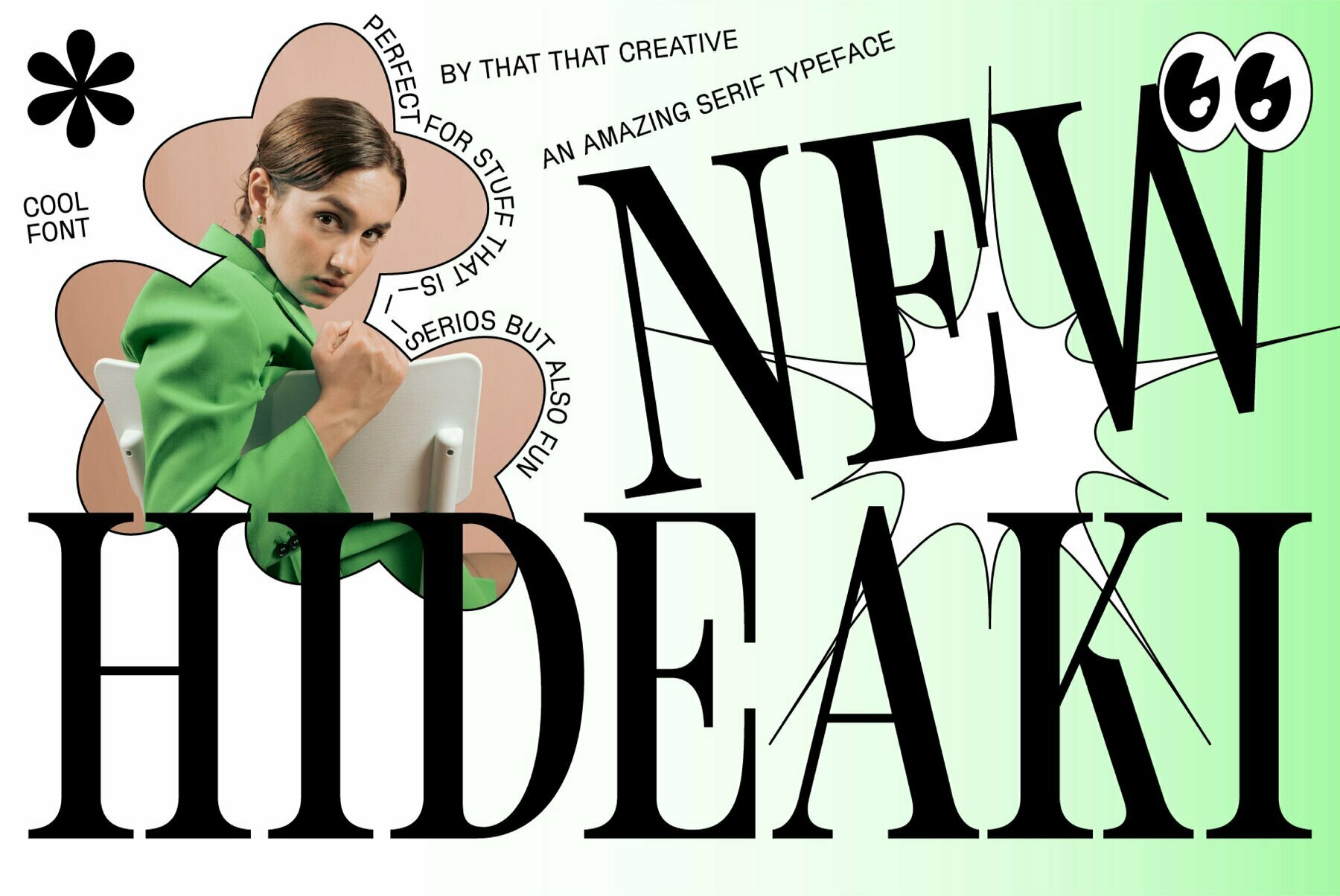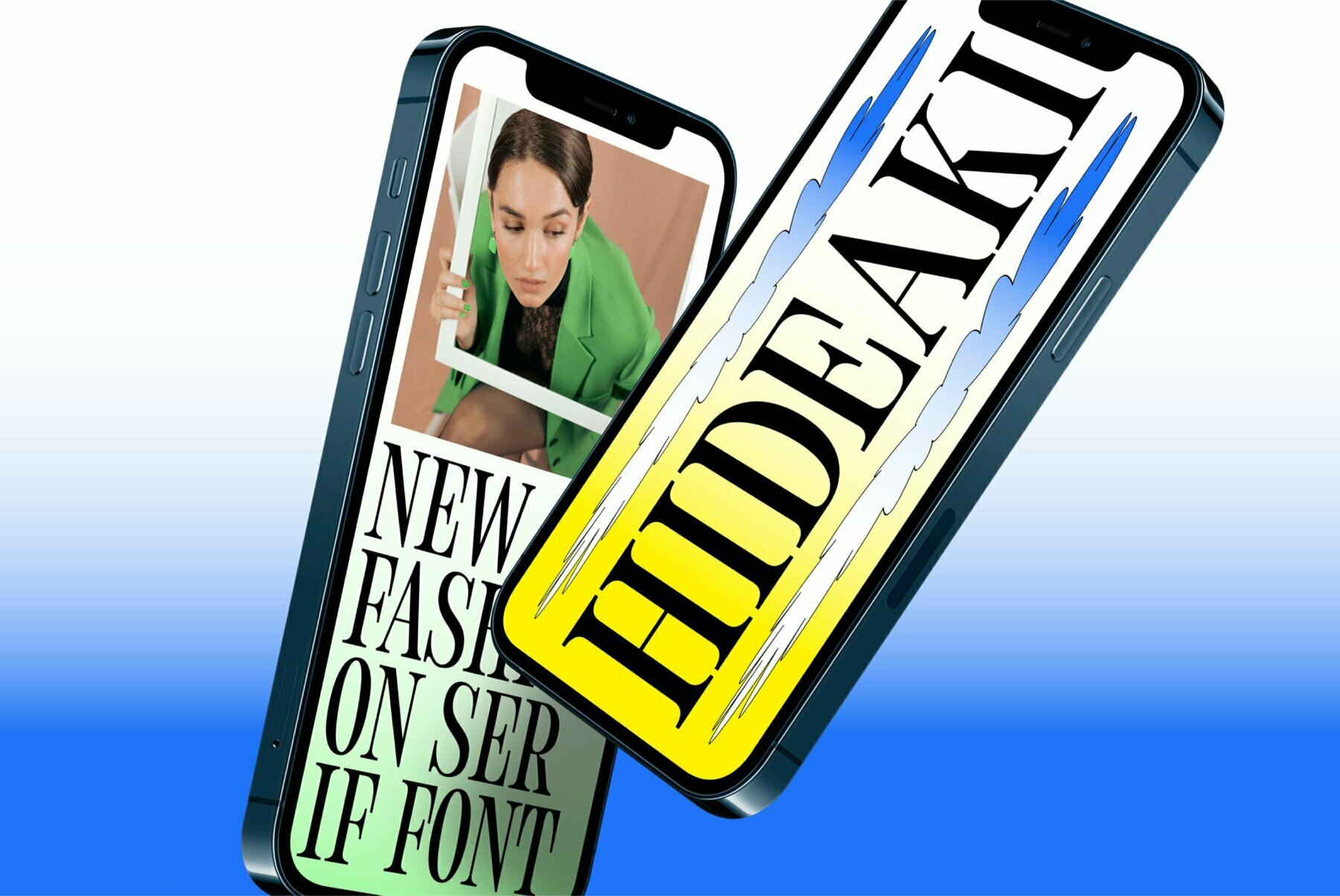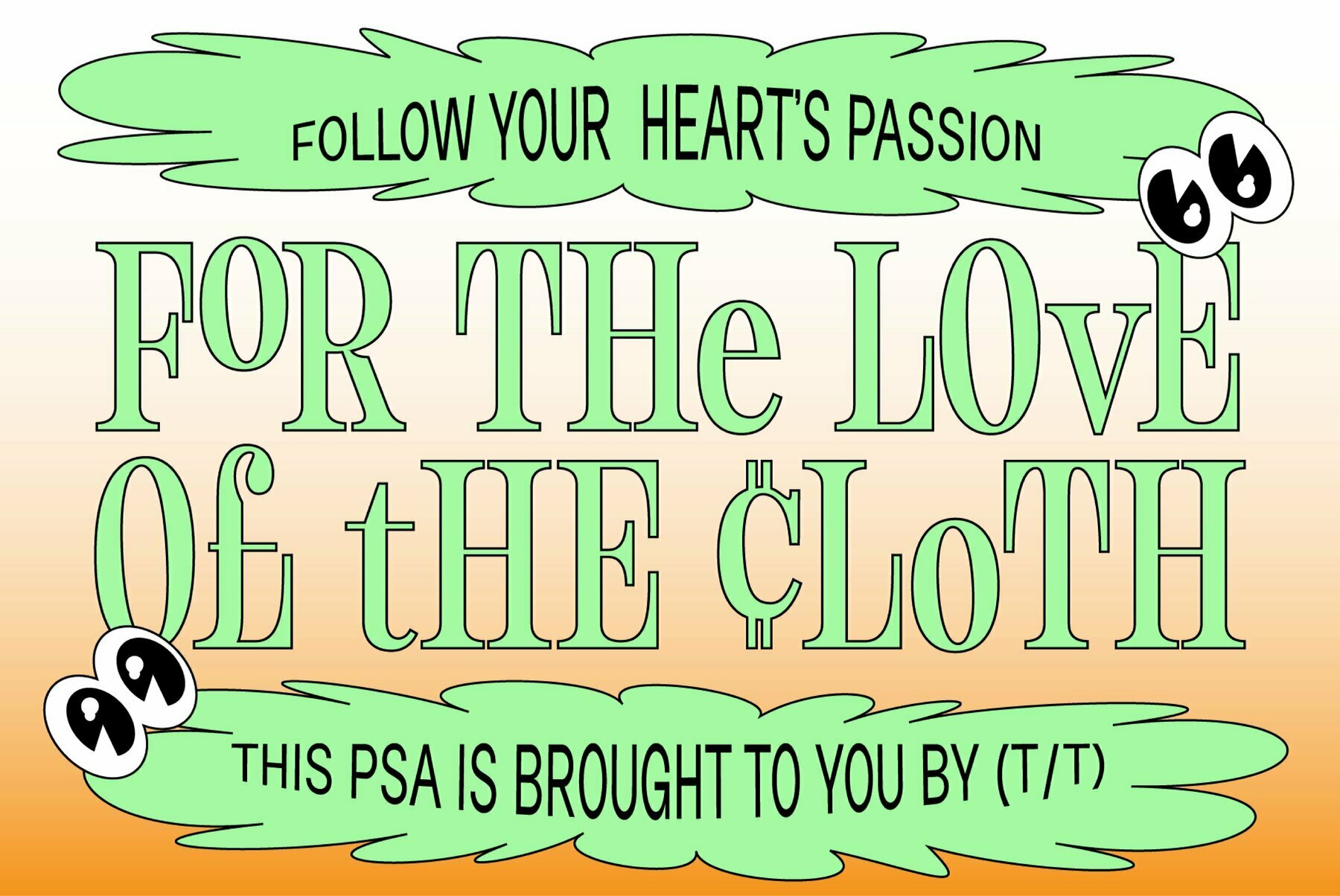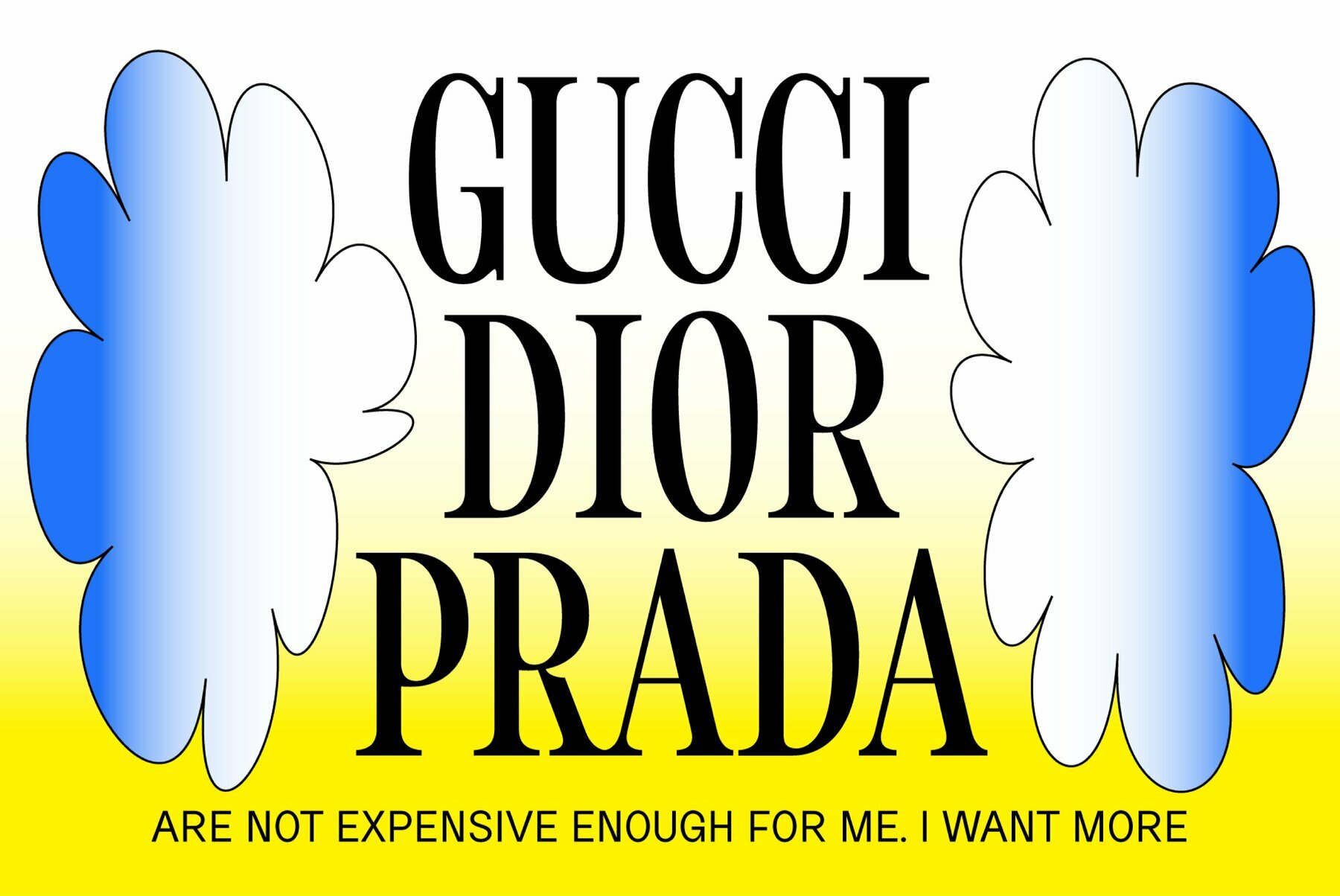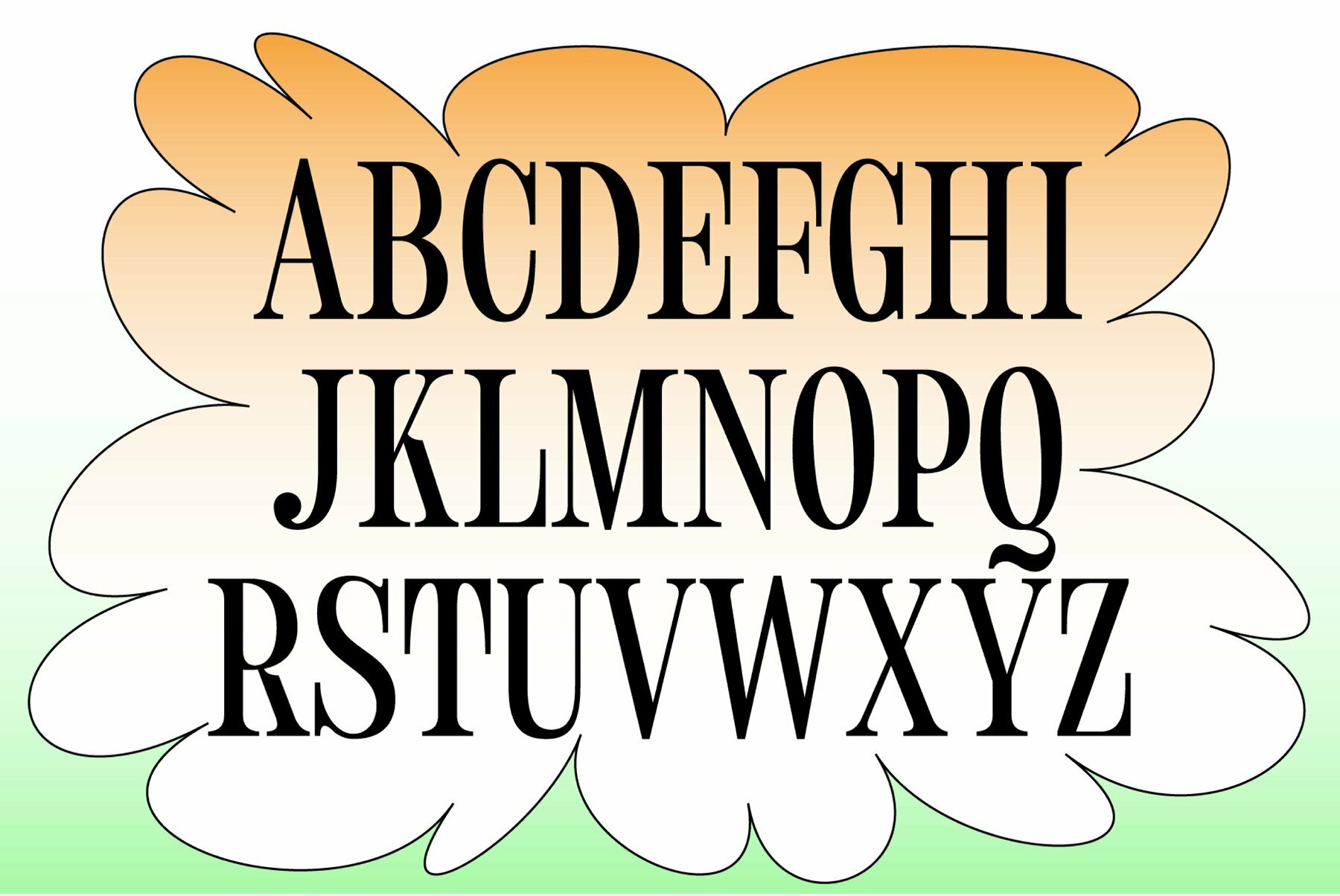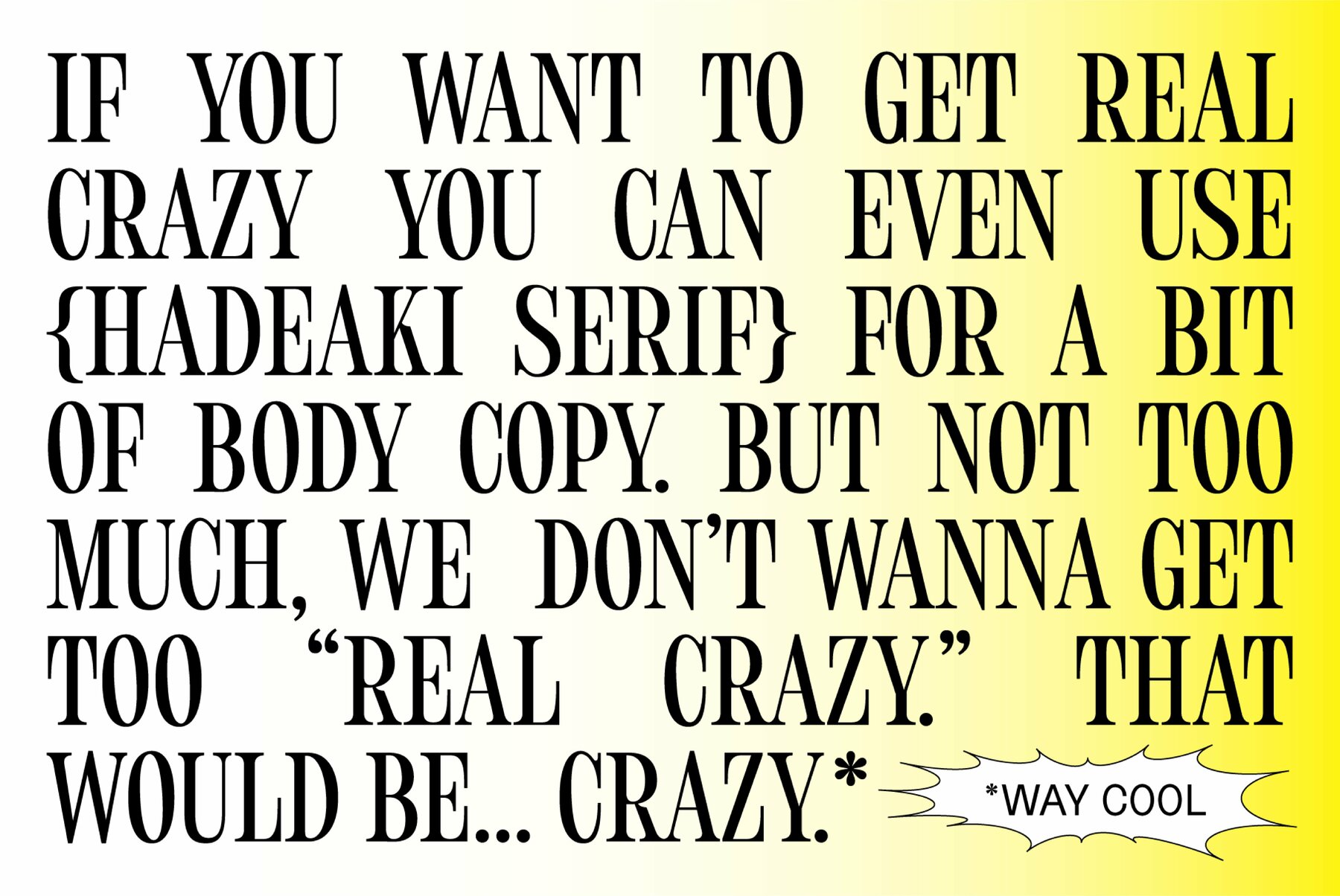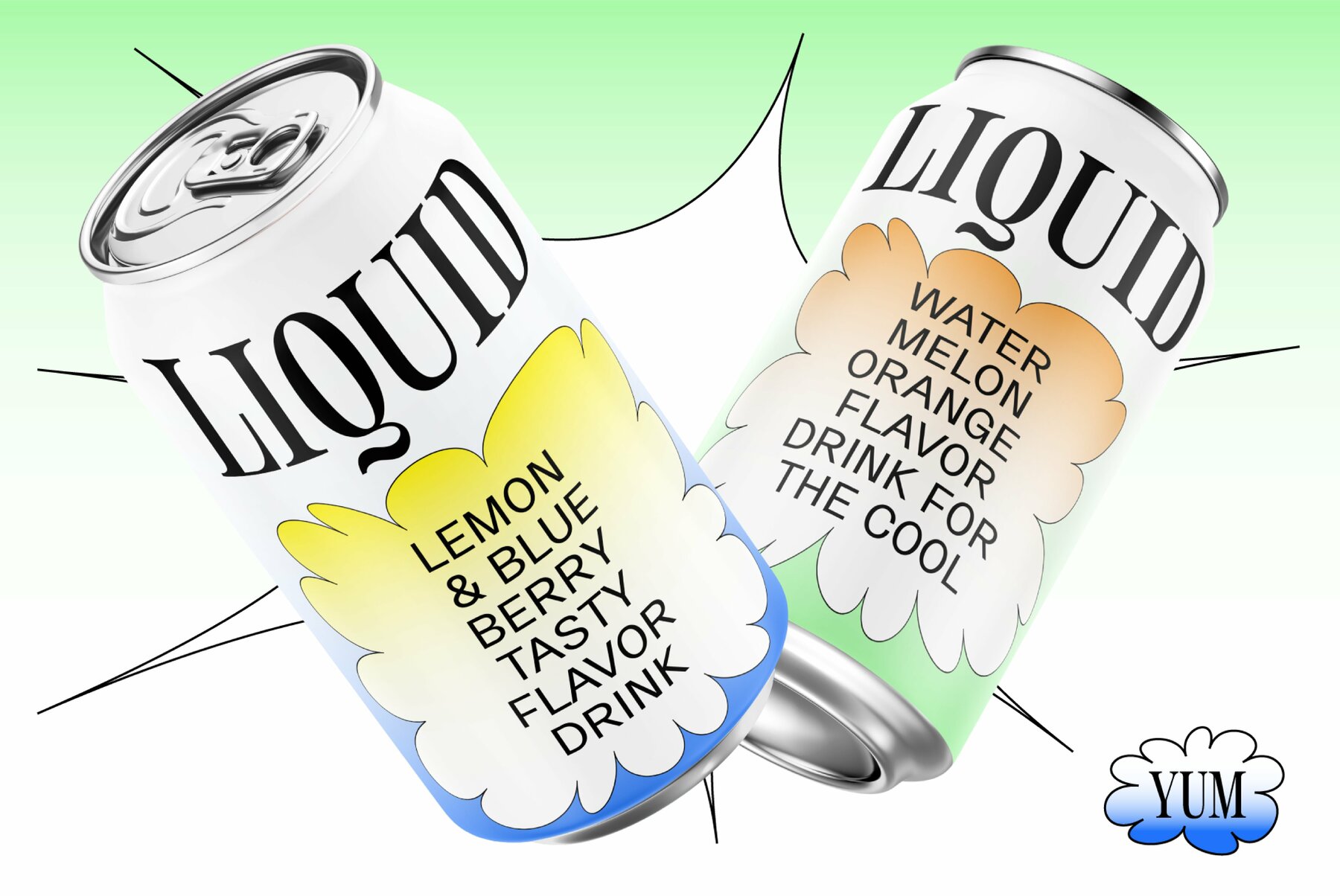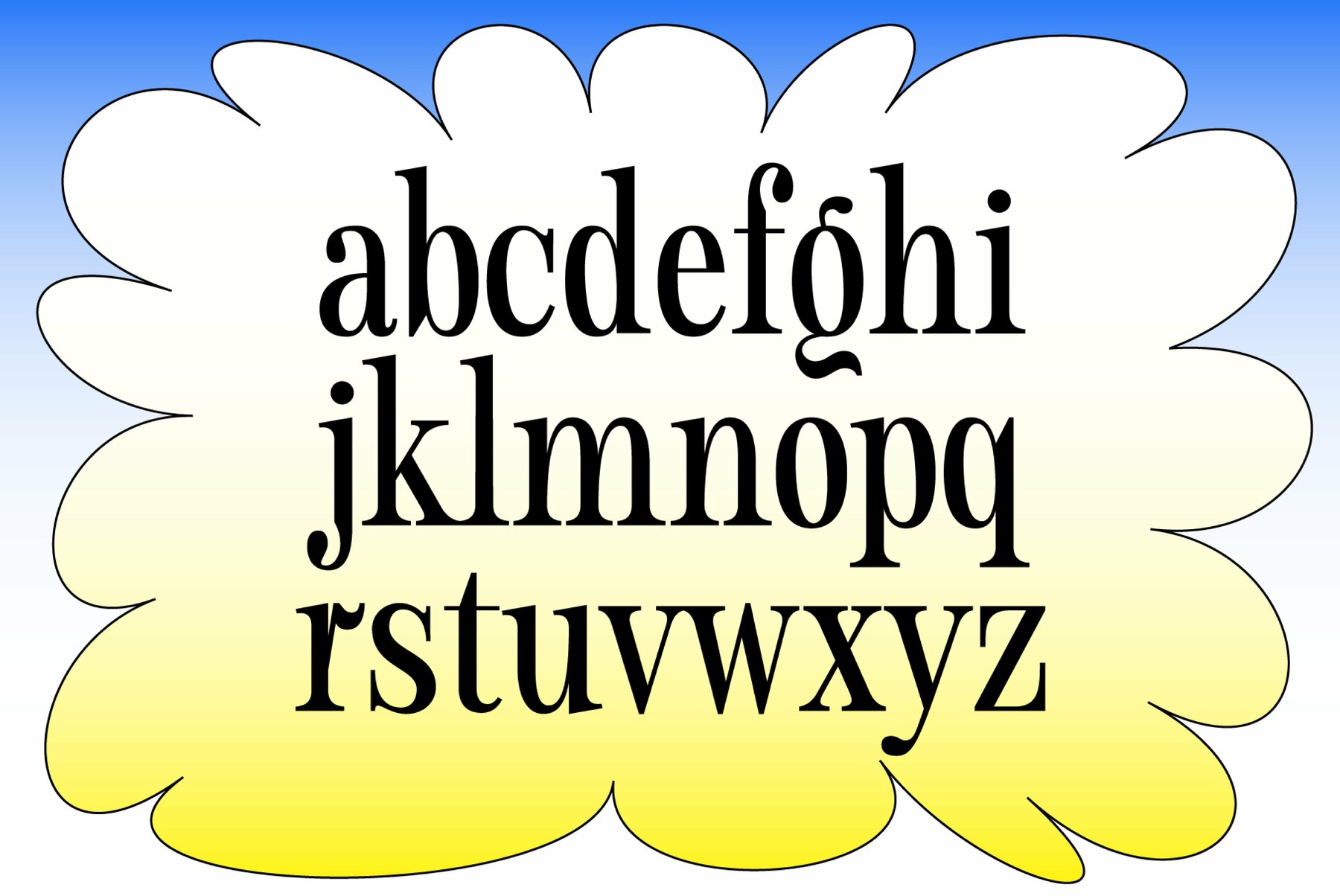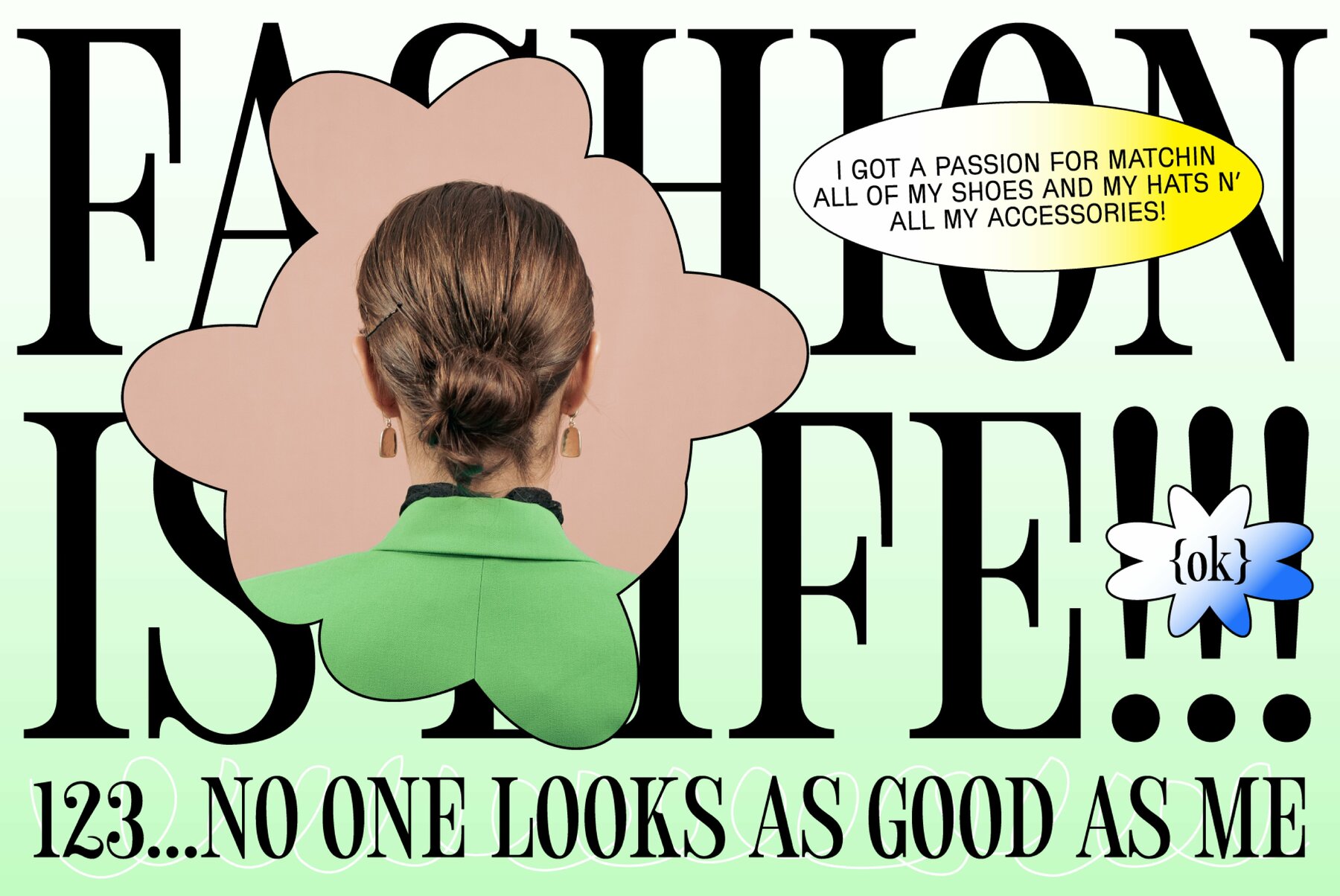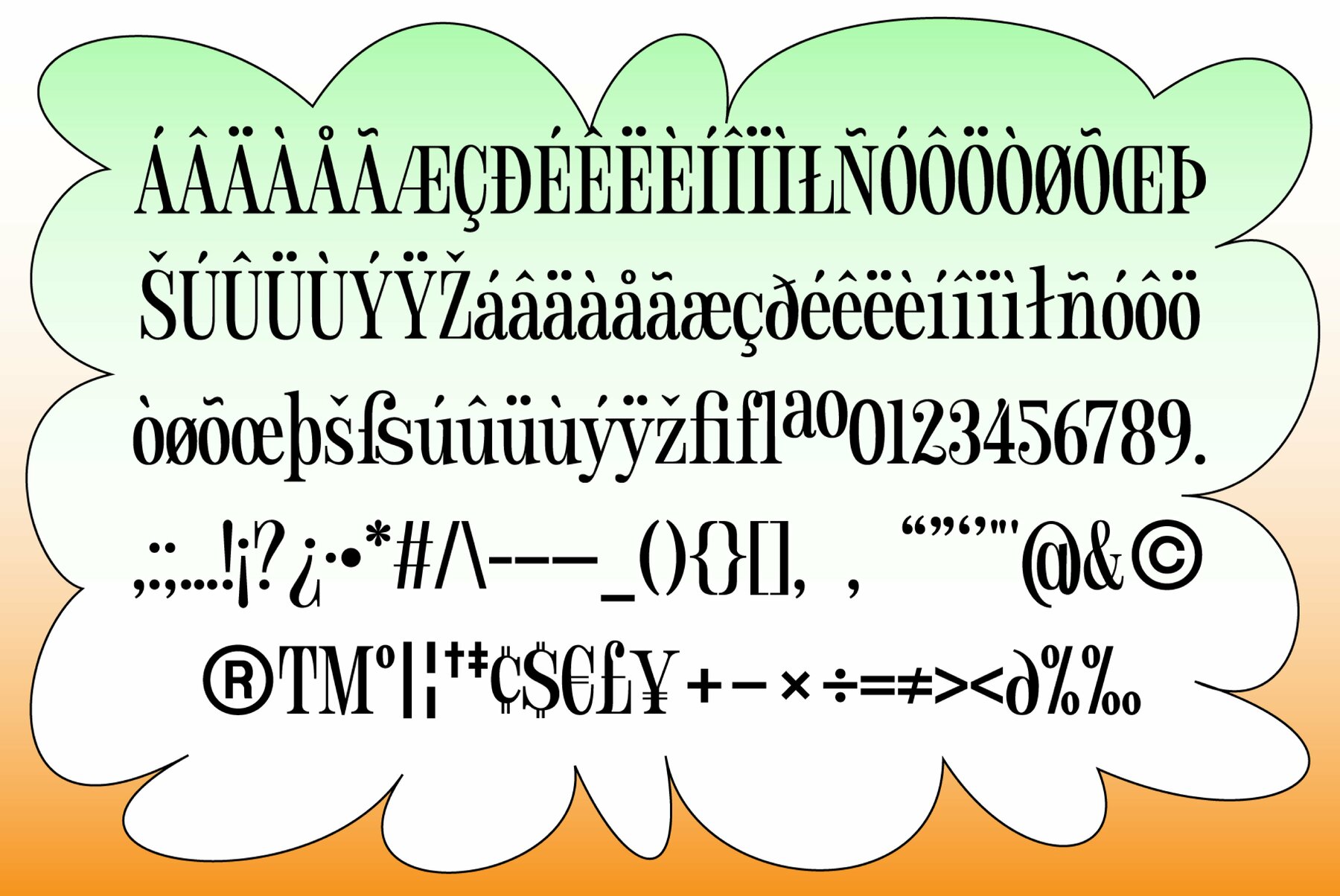
Hideaki Font
HIDEAKI Regular
Hideaki is a condensed modern display serif inspired by the typography of Neon Genesis. It is reserved yet has distinct moments of personality. like the notches on the legs of the R and K. it is condensed so you can fit a lot into a headline and really make an impact on print, magazines, posters, Instagram, video, branding, or whatever project you are working on.